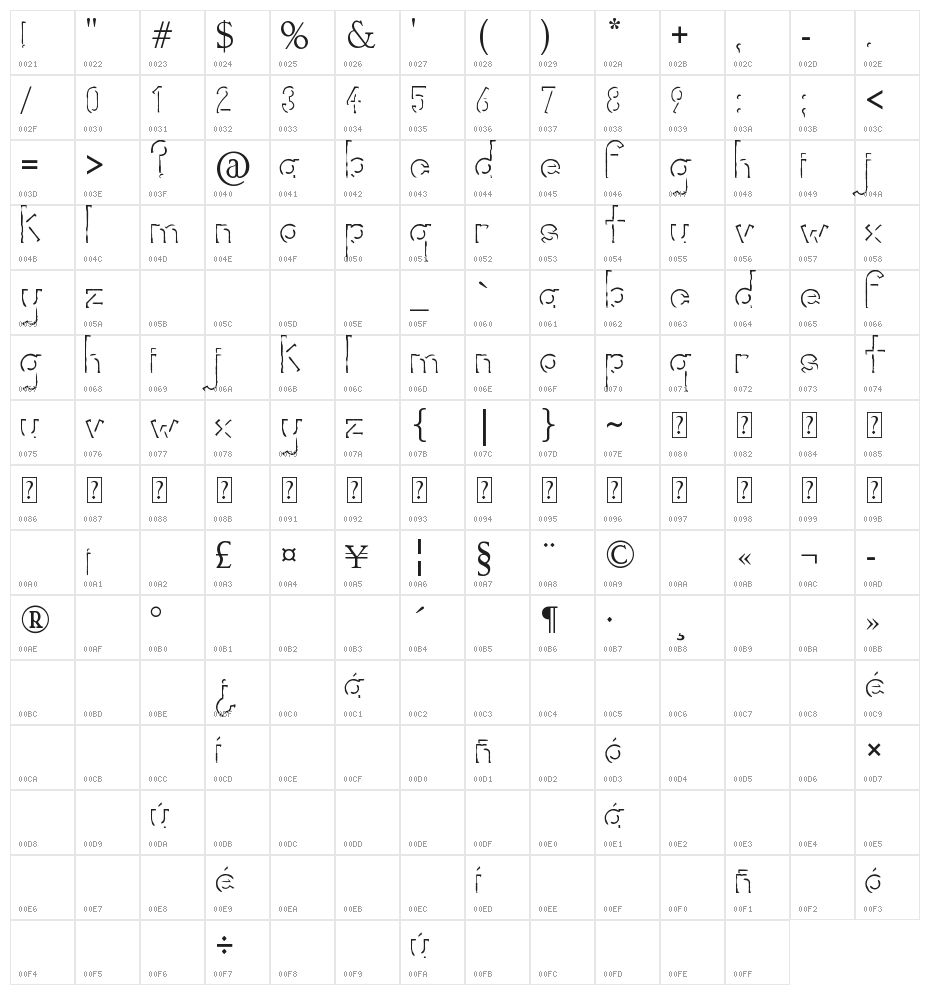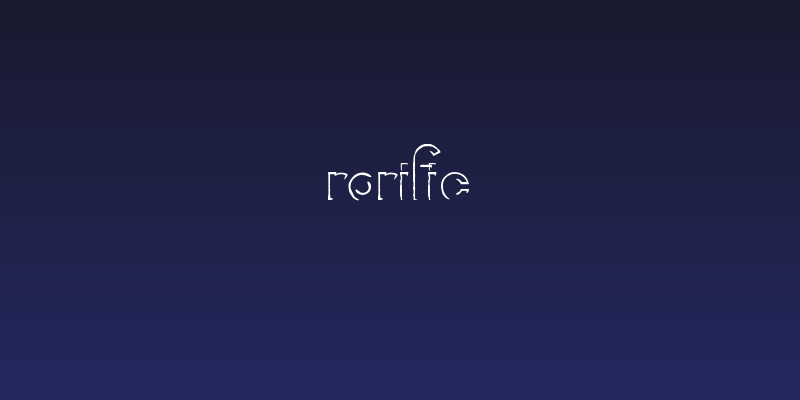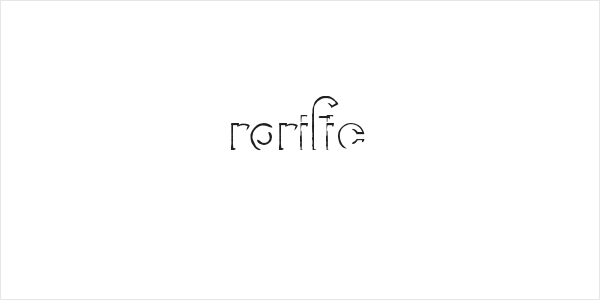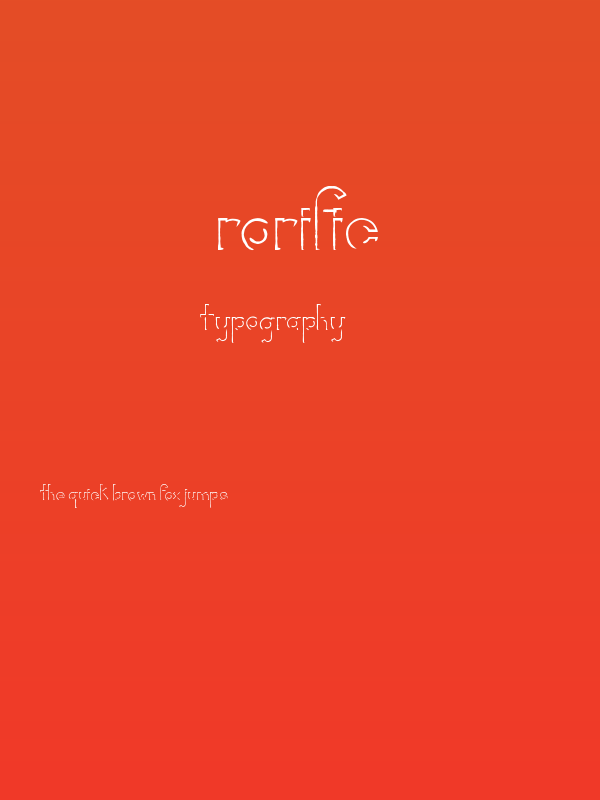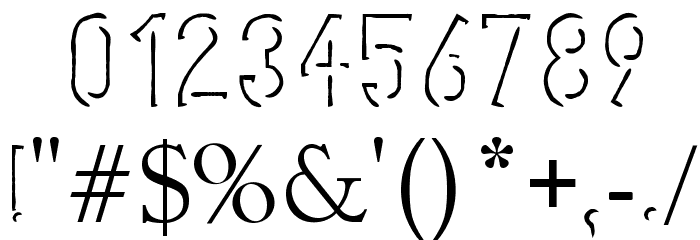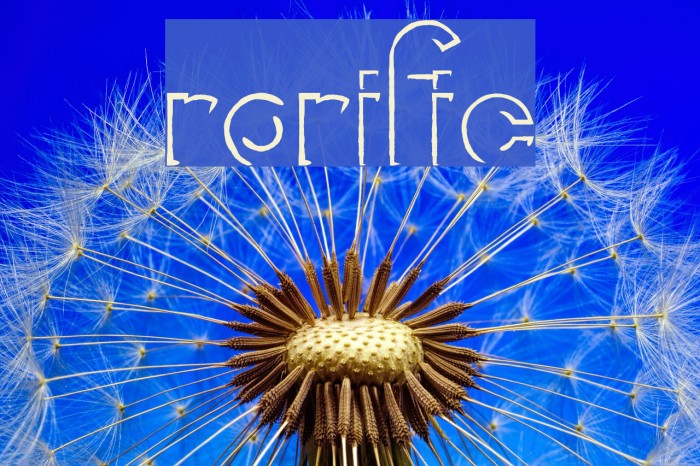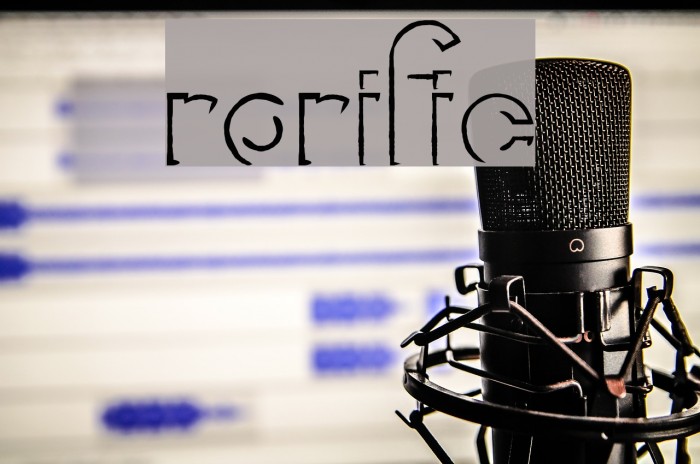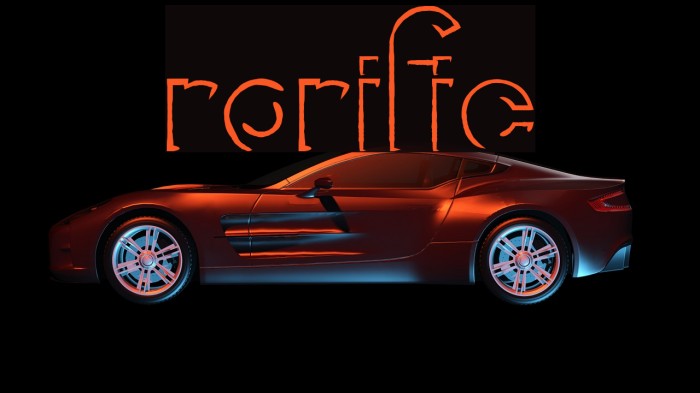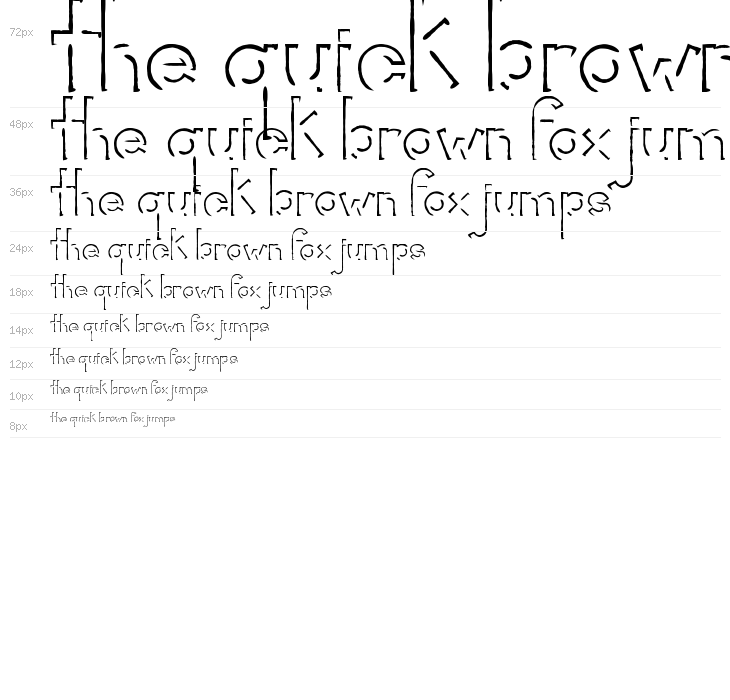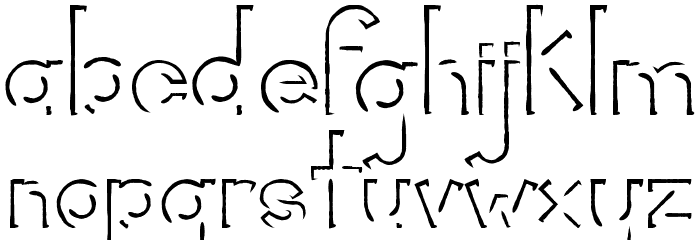
Rorific Font
Rorific Description
This font features a unique, stencil-like design with a modern twist. The characters are composed of clean, geometric shapes with distinct cutouts, giving it an industrial and contemporary feel. The uppercase and lowercase letters maintain a consistent style, with sharp angles and a uniform height. The numerals and special characters follow the same design principles, ensuring a cohesive look across all text. This font's distinctive appearance makes it stand out, while still maintaining readability.
| Proposed Projects | Ideal for branding, posters, and signage where a modern, industrial look is desired. |